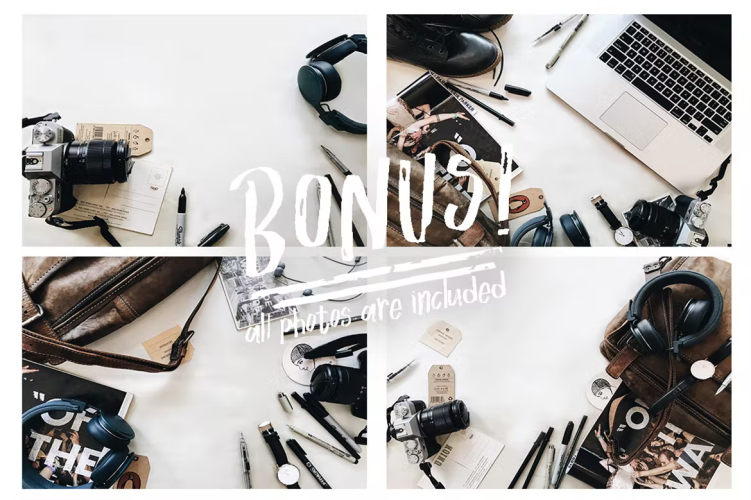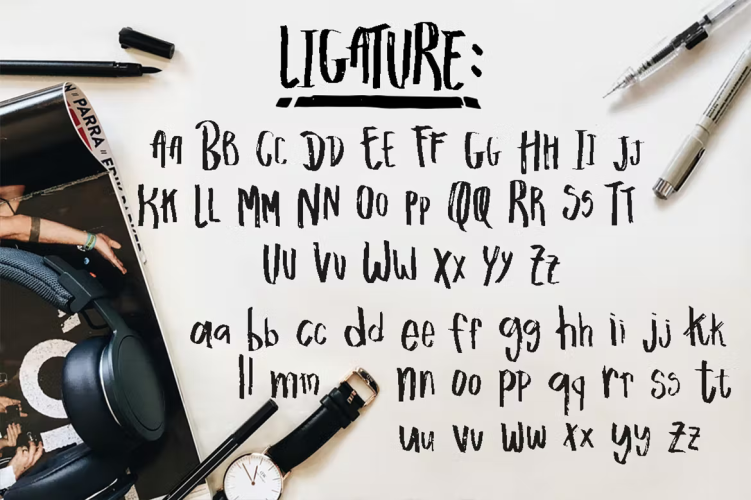
Every Summer Font
Every Summer is a dynamic, spontaneous typeface created manually using brush and marker. With a complete glyph available in the family, you can use Every Summer to creat…
Every Summer is a dynamic, spontaneous typeface created manually using brush and marker. With a complete glyph available in the family, you can use Every Summer to create greeting card title, signature for design work, badge and sticker, logo and return address, some cover design and so forth, you decide!
Every Summer comes with complete accented glyphs for international languages and also, special ligature feature that allows you to create different look to your design.
Where Every Summer Font works best
Every Summer Font brings a personal, handwritten warmth to invitations, menus and place cards.
Craft brands — coffee, cosmetics, bakery — use scripts like Every Summer Font for signature-style logos and labels.
Pair Every Summer Font with a plain sans for quotes, stories and Pinterest pins that feel handmade.
What is Every Summer Font good for?